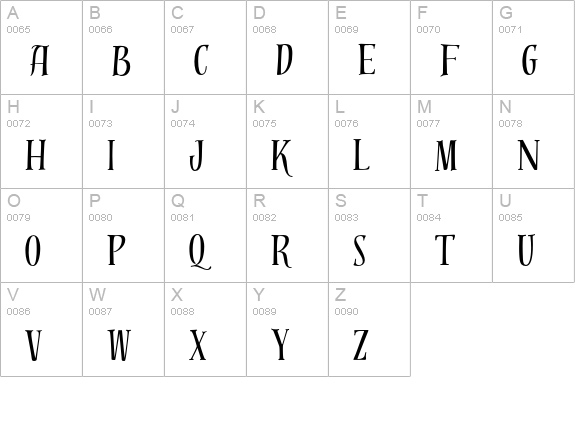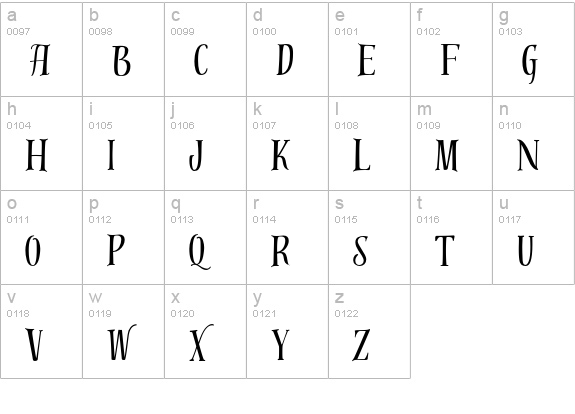
DistilleryDisplay Font Details
DistilleryDisplay font is a modern and sleek typeface perfect for adding a touch of sophistication to any design project. With its clean lines and elegant curves, this font exudes a sense of professionalism and style. Whether you're creating a logo, website, or marketing materials, DistilleryDisplay font is sure to make a statement. The best part? DistilleryDisplay font is available for free download at FontsMarket.com. That's right, you can enhance your work with this stunning font without spending a dime. Don't miss out on the opportunity to elevate your designs with the timeless beauty of DistilleryDisplay font. Download it now and see the difference it can make in your projects.